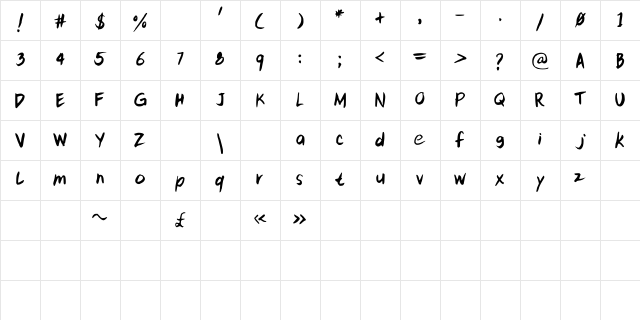
kitTypeExtra Medium Free Font
kitTypeExtra Medium
Design Context for kitTypeExtra
kitTypeExtra is a composed and adaptable typeface that performs quietly and consistently across a wide range of design contexts.
Pro Tip: Use kitTypeExtra in both headline and body roles to test its range before committing to a single application.